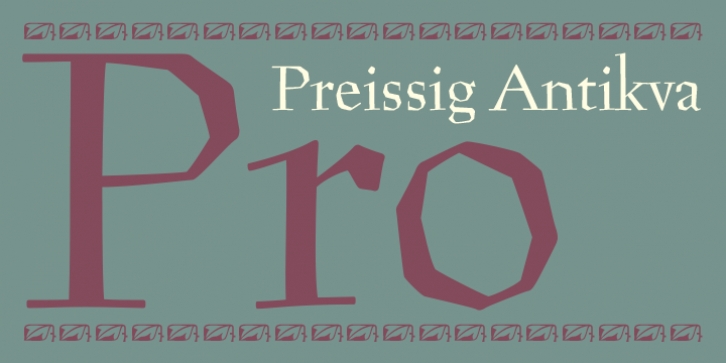
The majority of VojtÄ›ch Preissig's type faces have been, from their very creation, subject to controversial evaluations which might perhaps fill more pages than have been set in these type faces so far. The considerable technological backwardness of Czech typography between the world wars intensified the author's creative effort even more. He had been devoting thought to his Antikva type face from 1912 onwards and dozens of hardly perceptible nuances of the same design have been preserved in his drawings. It was his only book type face, but it shows no signs of any hard struggle in creating it. Its extraordinary vividness and elegance are really surprising. It may be still indebted to the forms of Art Nouveau, which was withering away at that time, but its proportions, colour and expression inspire other Czech type designers. Preissig's Antikva, Menhart's Figural (and also RůžiÄka's Fairfield) and Týfa's Antikva represent a clear line of development, very far away from the soft aesthetics of Tusar, Dyrynk or Brunner. The co-author of the modification for computer composition is Otakar Karlas. Without his experience the work would remain only a shadow of Preissig's design. Our aim was to produce a large family of type faces for the setting of both books and jobbing works. The digital transcription of Preissig's Antikva came into existence from summer till winter 1998. The direct model for this type face is the most successful, two-cicero (24 pt.) design dating from 1925. The designs of other sizes (12 pt., 14 pt., 16 pt. and then 36 pt. and 49 pt.) lack vividness and are the source of the widespread mistaken belief that Preissig's Antikva consists of straight lines. That is, unfortunately, how even Muzika and Menhart describe it. Neither is it a Cubist type face as many of the semi-educated think today.
Special attention had to be paid to italics. It is apparent that their design is not as perfect as that of Preissig's Antikva. In contradistinction to the original we have deleted almost all lower serifs in the lower-case letters, enlarged the angle of inclination and completely redesigned the letters a, e, g, s, k, x, ... All crotches have been lightened by marked incisions. In other words, none of the italic letters corresponds to Preissig's model. The signs which were missing have been supplemented with regard to the overall character of the alphabet. Preissig did not deal with bold designs, but the crystal-clear logic of his "chopping-off" of the round strokes enabled us to complete the type face family without any greater doubts.
An excessively fragile type face, however, cannot be used for setting in smaller sizes; that is why we have prepared a separate family of text designs which has shortened ascenders, normal accents, slightly thickened strokes, and is, in general, optically more quiet and robust. We recommend it for sizes under 12 points. By contrast, the elegance of the basic design will be appreciated most in the sizes used for headlines and posters. Preissig's Antikva is suitable not only for art books and festive prints, but also for poetry and shorter texts.